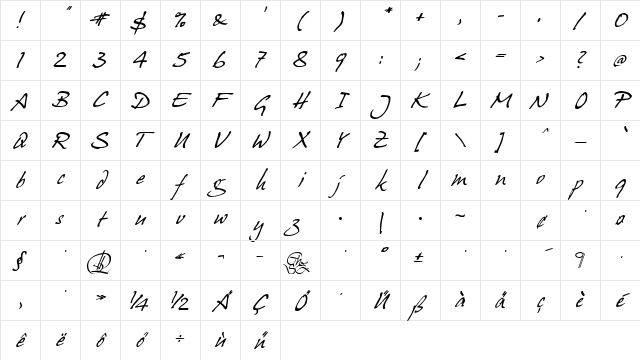
Juergen Italic
Designer: Hans J. Zinken
Design Context for Juergen
Juergen is a composed and adaptable typeface that performs quietly and consistently across a wide range of design contexts. The slanted form adds forward momentum and visual energy.
Pro Tip: Use Juergen for emphasis, pull quotes, and subheadings where its slanted energy can add rhythm to the layout.